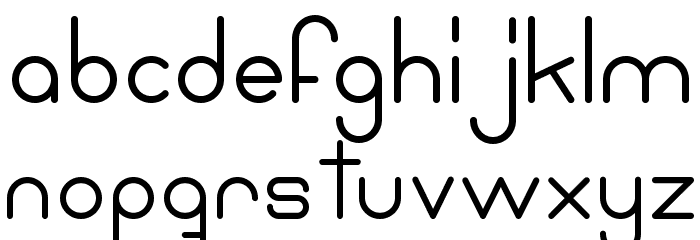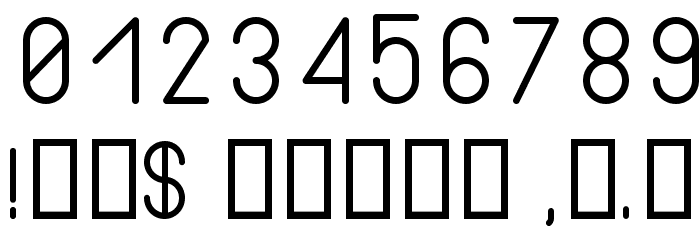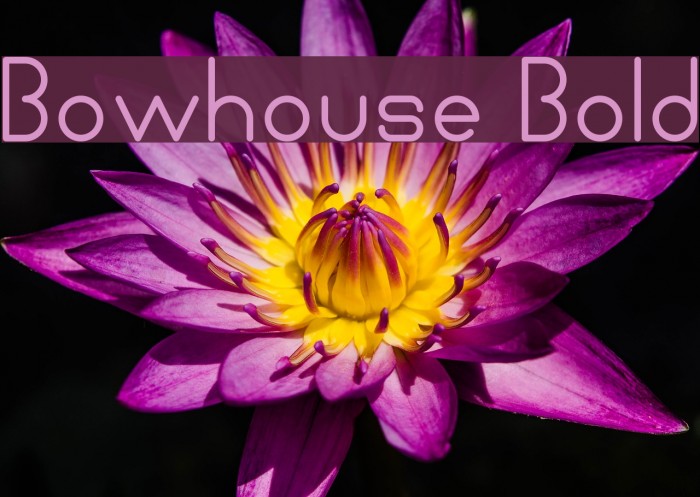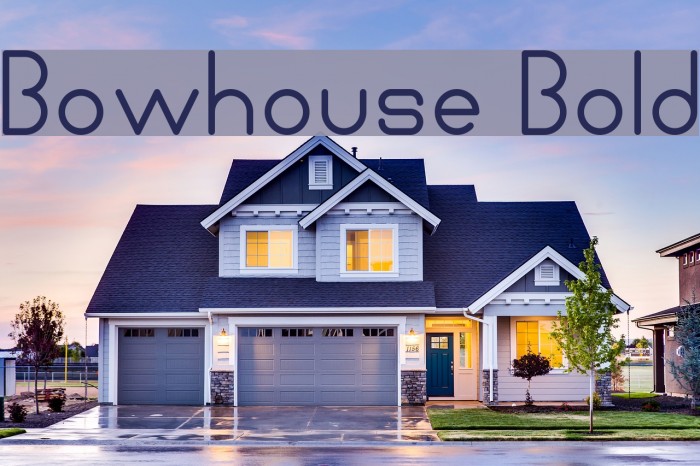
Bowhouse Bold Font
This font features a clean, geometric design with rounded edges, giving it a modern and approachable appearance. The characters are uniformly structured, with consistent stroke widths that contribute to a balanced and harmonious look. The uppercase letters are bold and prominent, while the lowercase letters maintain a similar style with slightly reduced height, ensuring readability. The numerals are clear and distinct, matching the overall aesthetic of the alphabet. Special characters are well-integrated, maintaining the font's cohesive style. This font is versatile, suitable for a variety of design projects that require a contemporary and friendly touch.
A modern, geometric font with rounded edges and consistent stroke widths.